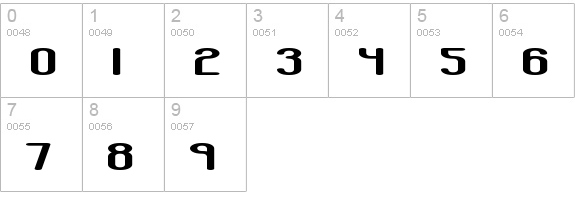
Bobcaygeon -BRK- Font Details
Bobcaygeon -BRK- font is a sleek and modern typeface that brings a touch of sophistication to any design project. With its clean lines and stylish curves, this font is perfect for adding a touch of elegance to your work. Whether you're designing a logo, creating a poster, or writing a headline, Bobcaygeon -BRK- font is sure to make a statement. The best part? Bobcaygeon -BRK- font is completely free to download at FontsMarket.com. That's right - you can add this stylish font to your collection without spending a dime. So why wait? Download Bobcaygeon -BRK- font today and elevate your designs to the next level.